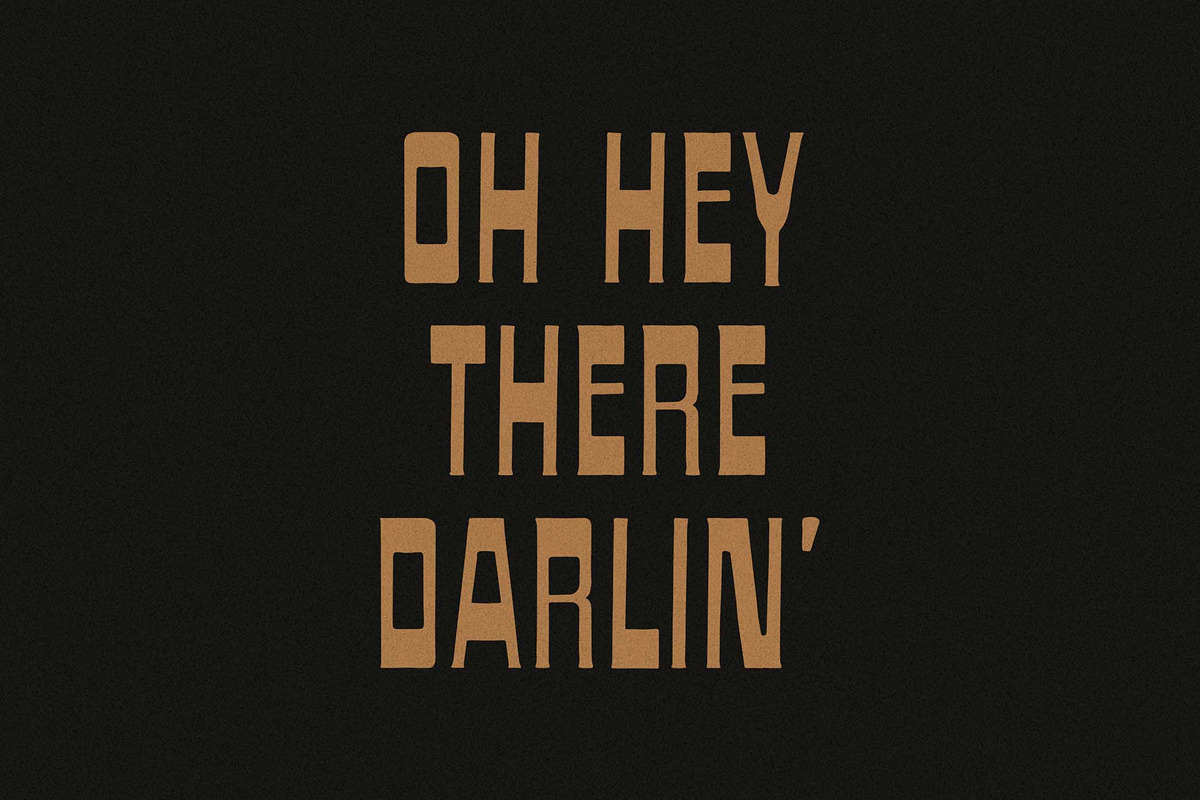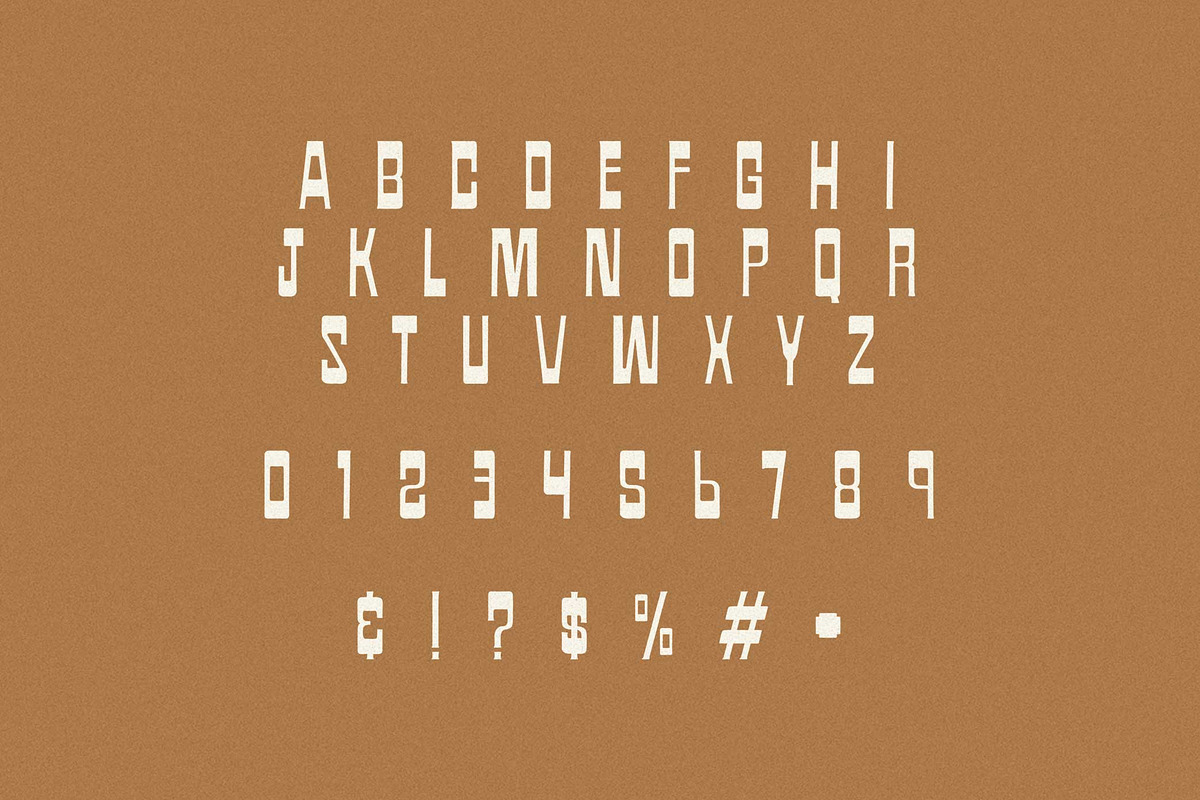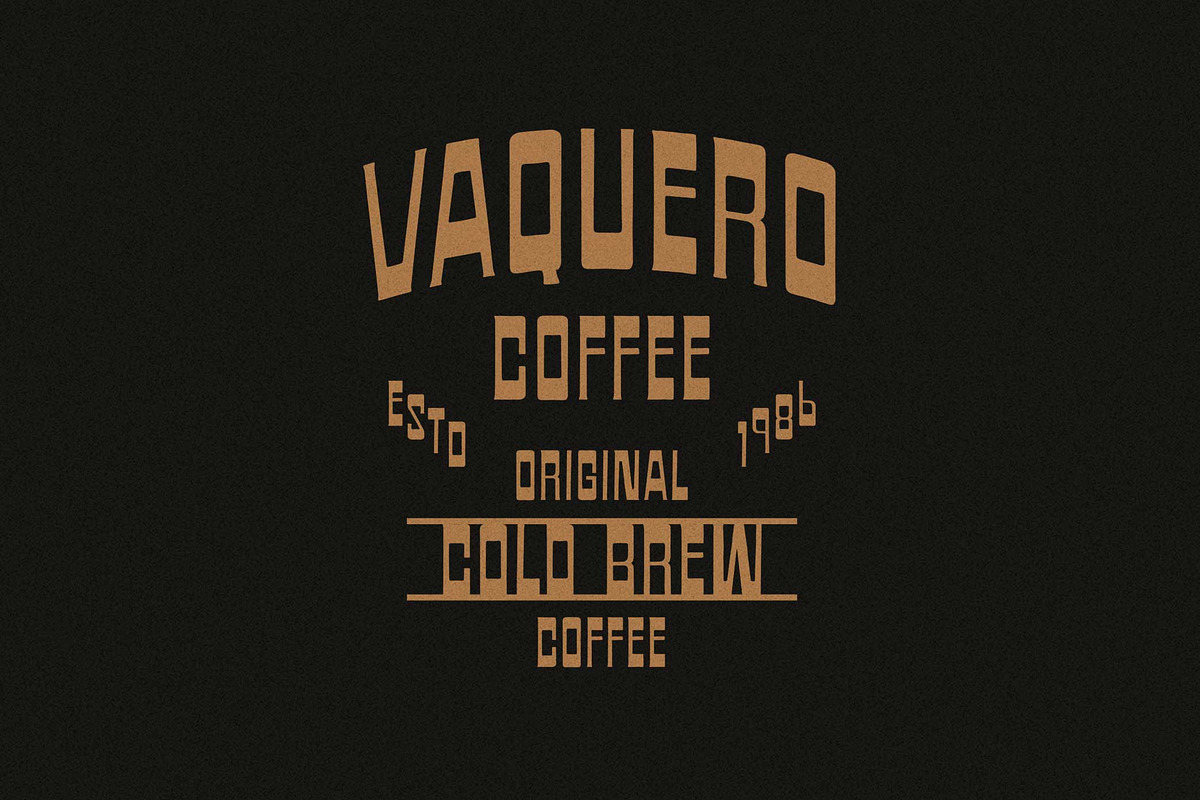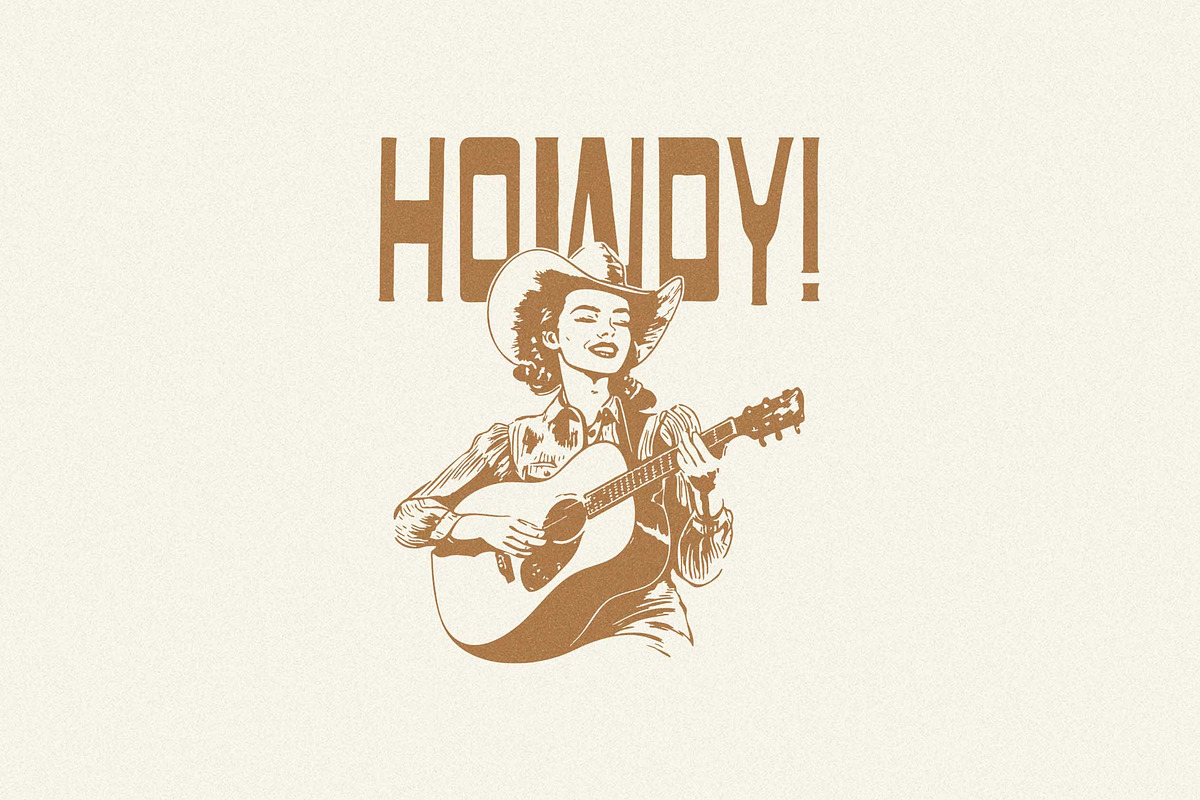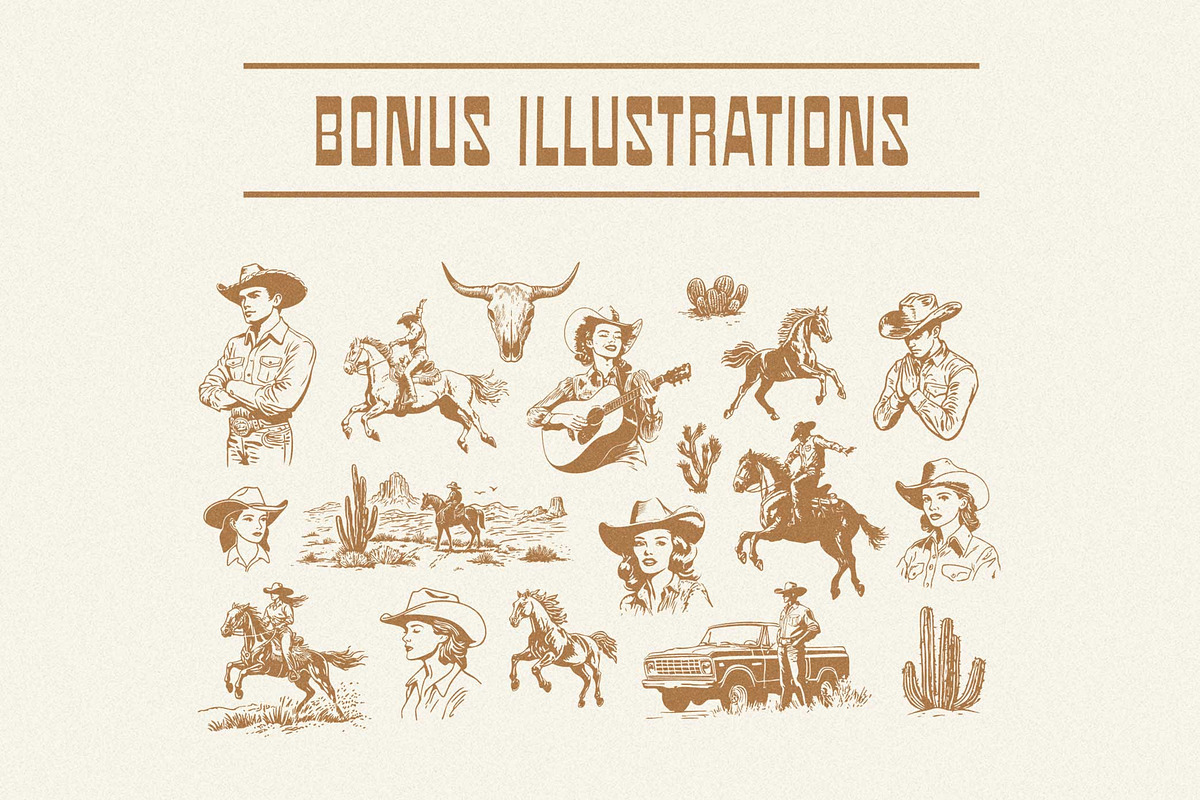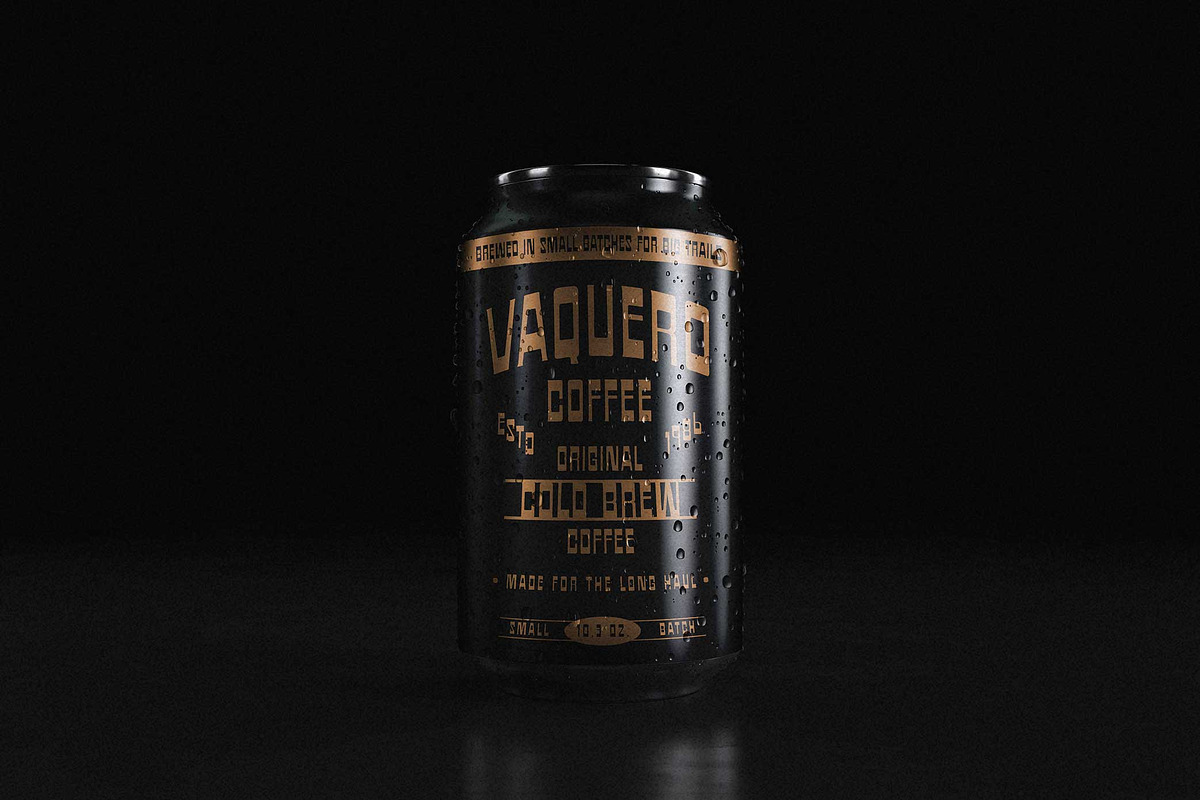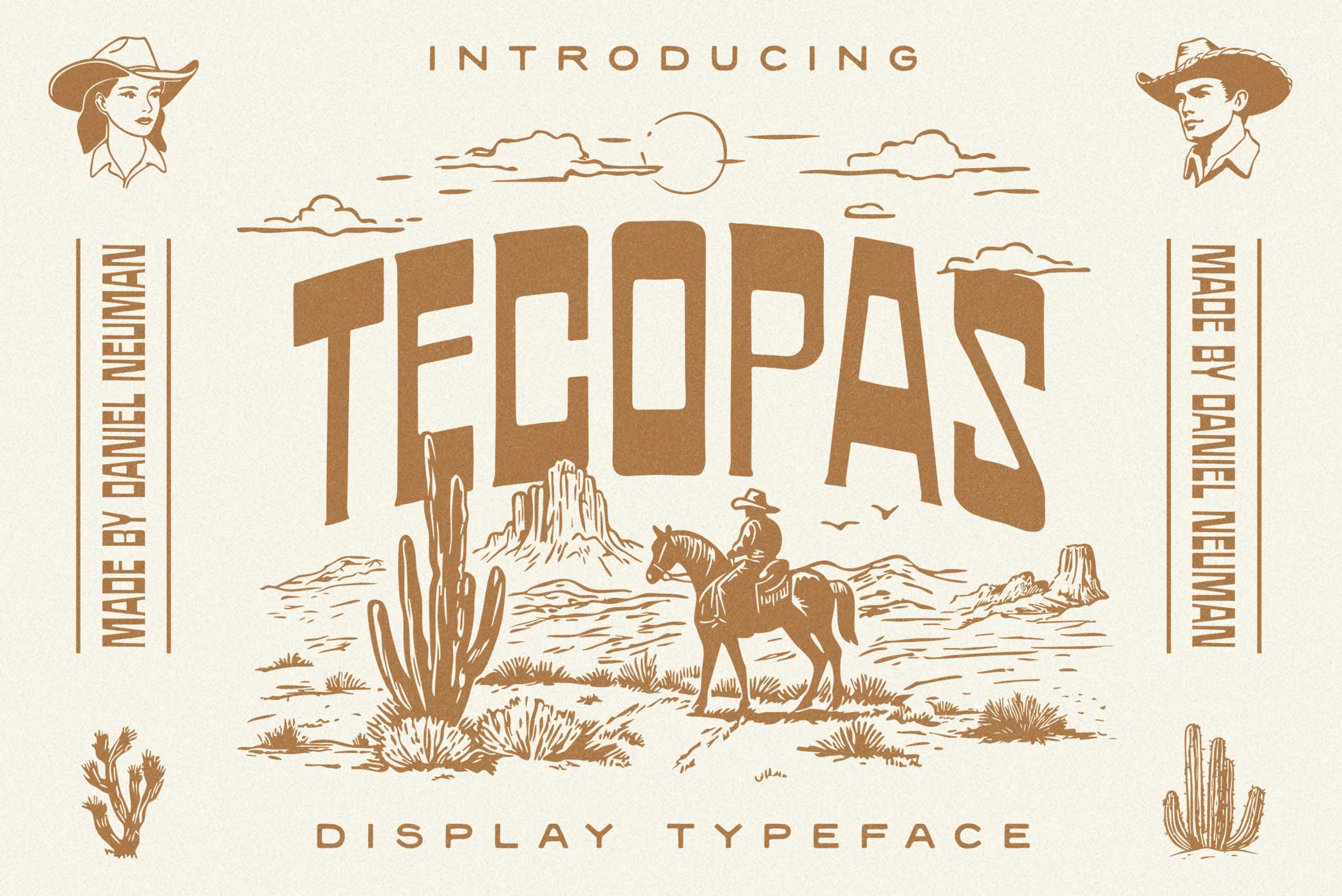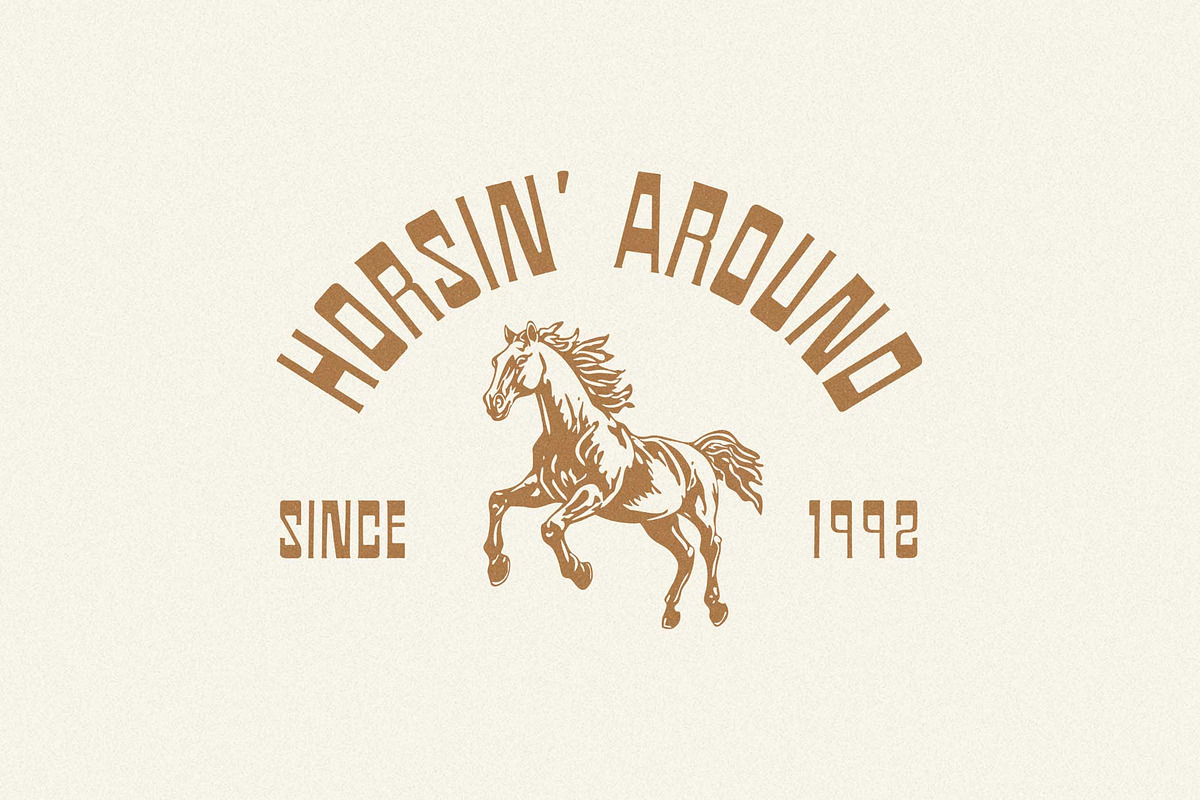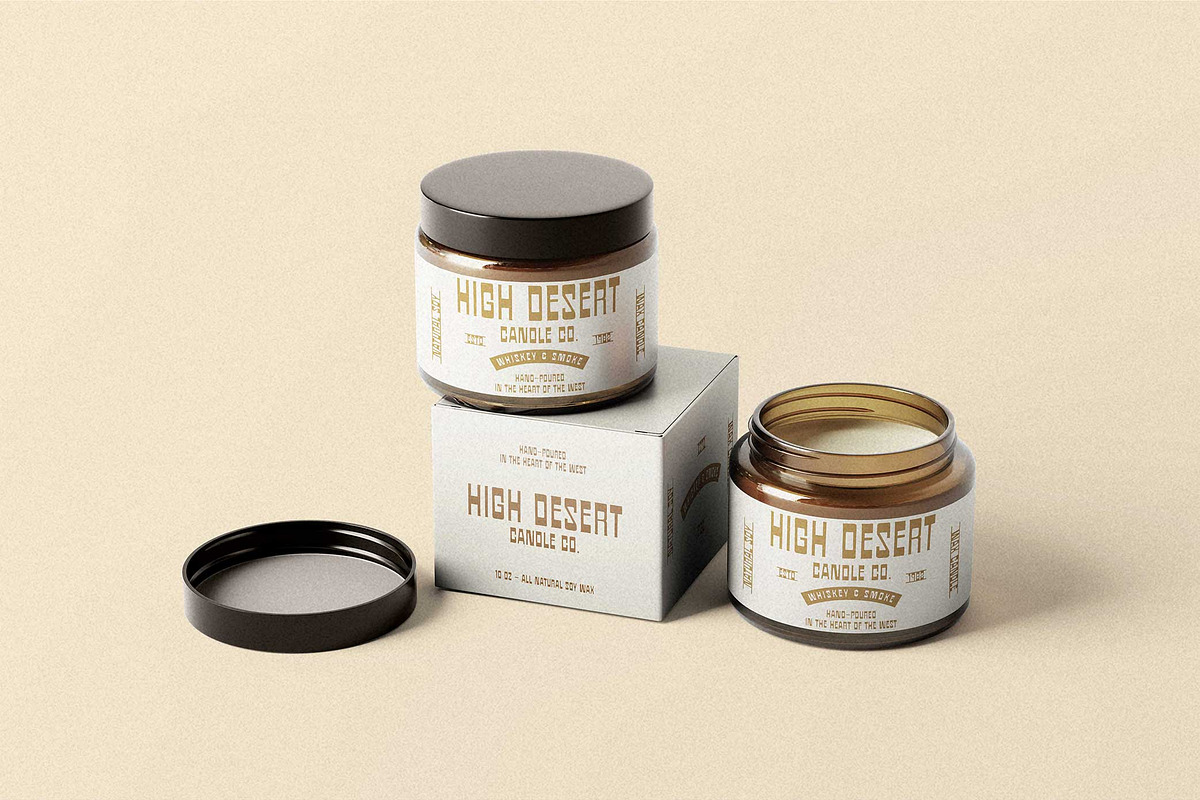
Tecopas Font + Bonus Illustrations
Saddle up with Tecopas, a display typeface that’s all about making a statement. With its bold, Western-inspired look and a dash of Mexican heritage, this font adds the perfect amount of grit and charm. It’s ideal for labels, headlines, or anything that demands to be noticed. No lone ranger here; we’ve rounded up some bonus illustrations to keep this font company on the dusty trail.